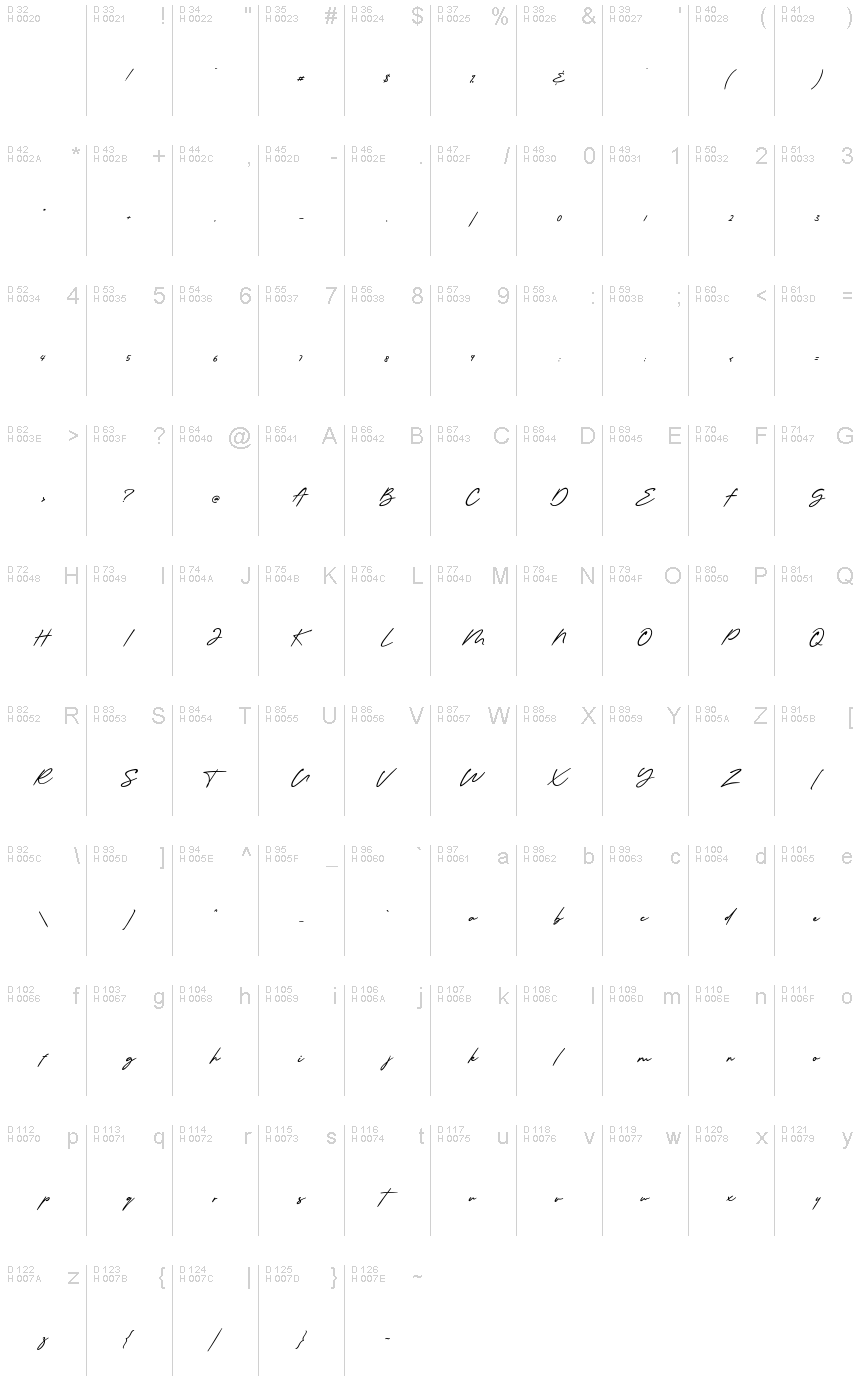
Millanova
Millanova, a modern signature font created by Pen Culture, exudes a captivating blend of elegance and effortless charm. This handwritten masterpiece boasts a seamless flow of ligatures, offering a refined and personalized aesthetic that elevates any design. The font's distinctive strokes and fluid motion evoke a sense of warmth and authenticity, making it a natural choice for projects seeking a touch of personalized sophistication.
Millanova's versatility shines through its ability to elevate a wide range of design applications, from captivating logos and impactful labels to expressive t-shirt designs and eye-catching prints. Its signature-inspired style lends an air of exclusivity and personalization, making it an excellent choice for branding, packaging, and editorial projects that aim to convey a sense of refined individuality.